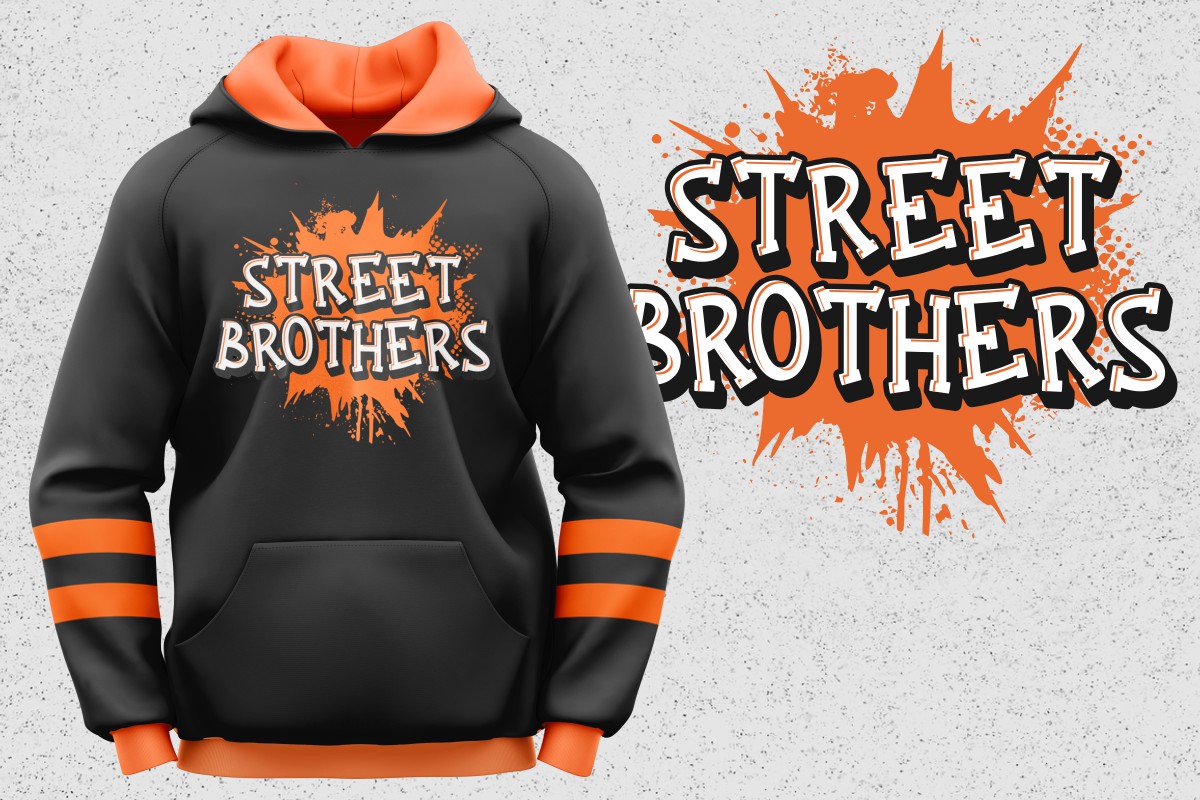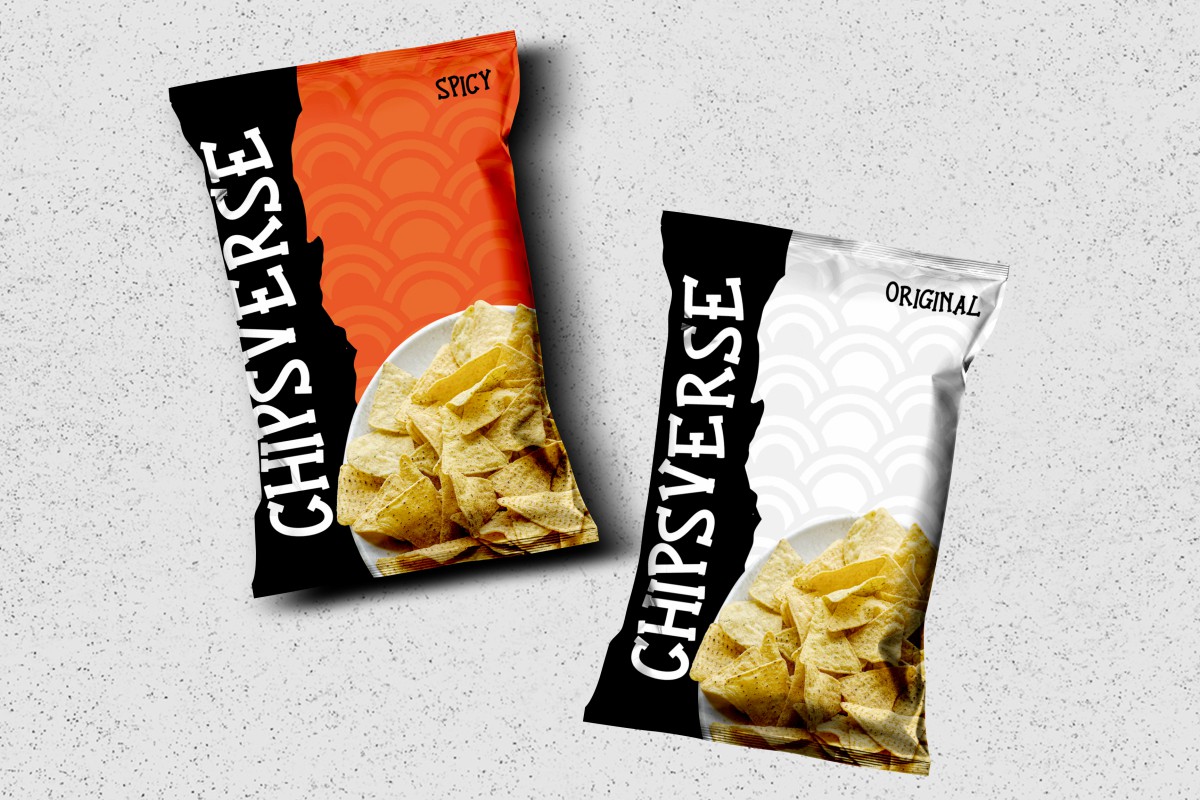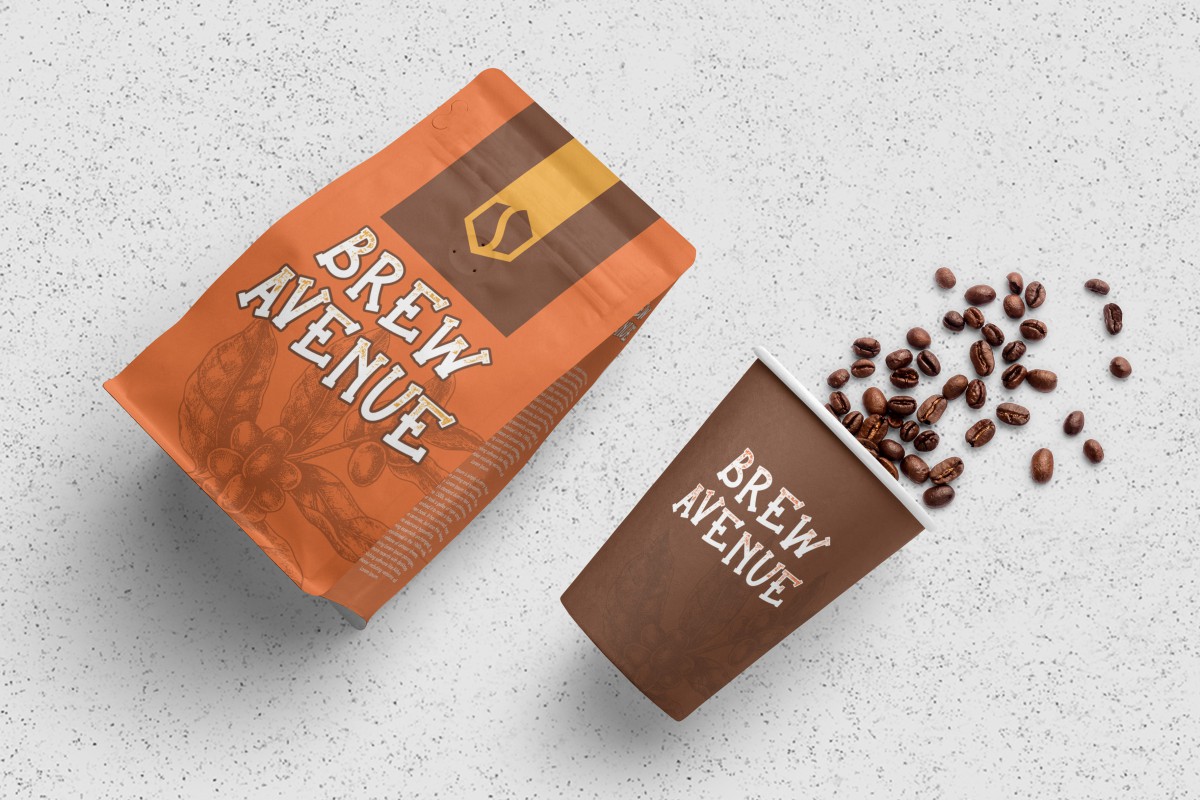
Savage Fox Font
Savage Fox Display Font
This is a serif display font that has unique style with dark extreme dark style. Great for logos, products packaging, poster, title etc. Savage Fox will match for racing, horror, mysterious, scary, sports or extreme events . The font will be awesome for many industries including : events, food, games and many more!